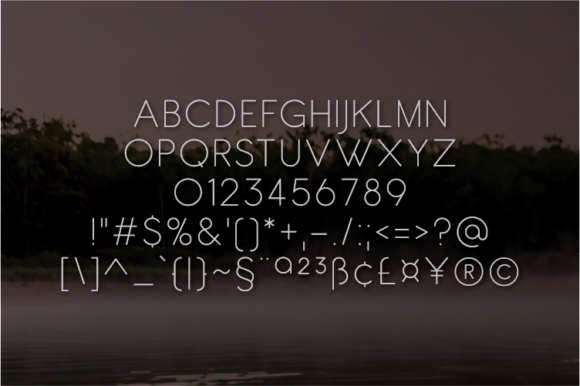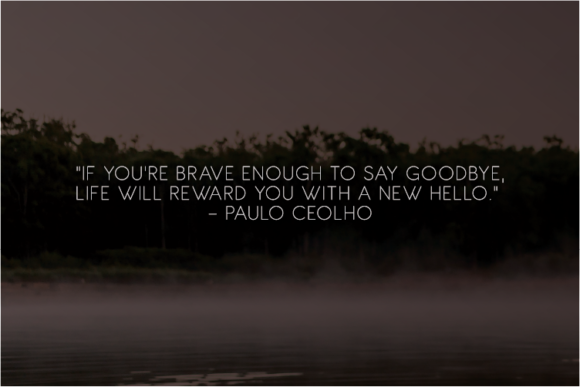
Introduction to Hinele Font
Hinele is a minimal and thin lettered sans serif font.
It can be matched to an incredibly wide range of projects, such as displays, headers, invitations, save the dates, weddings, and so much more .
Hinele Font offers exceptional quality and versatility, making it a valuable addition to your design toolkit. Whether you’re creating for personal projects or commercial use, Hinele Font delivers professional results.